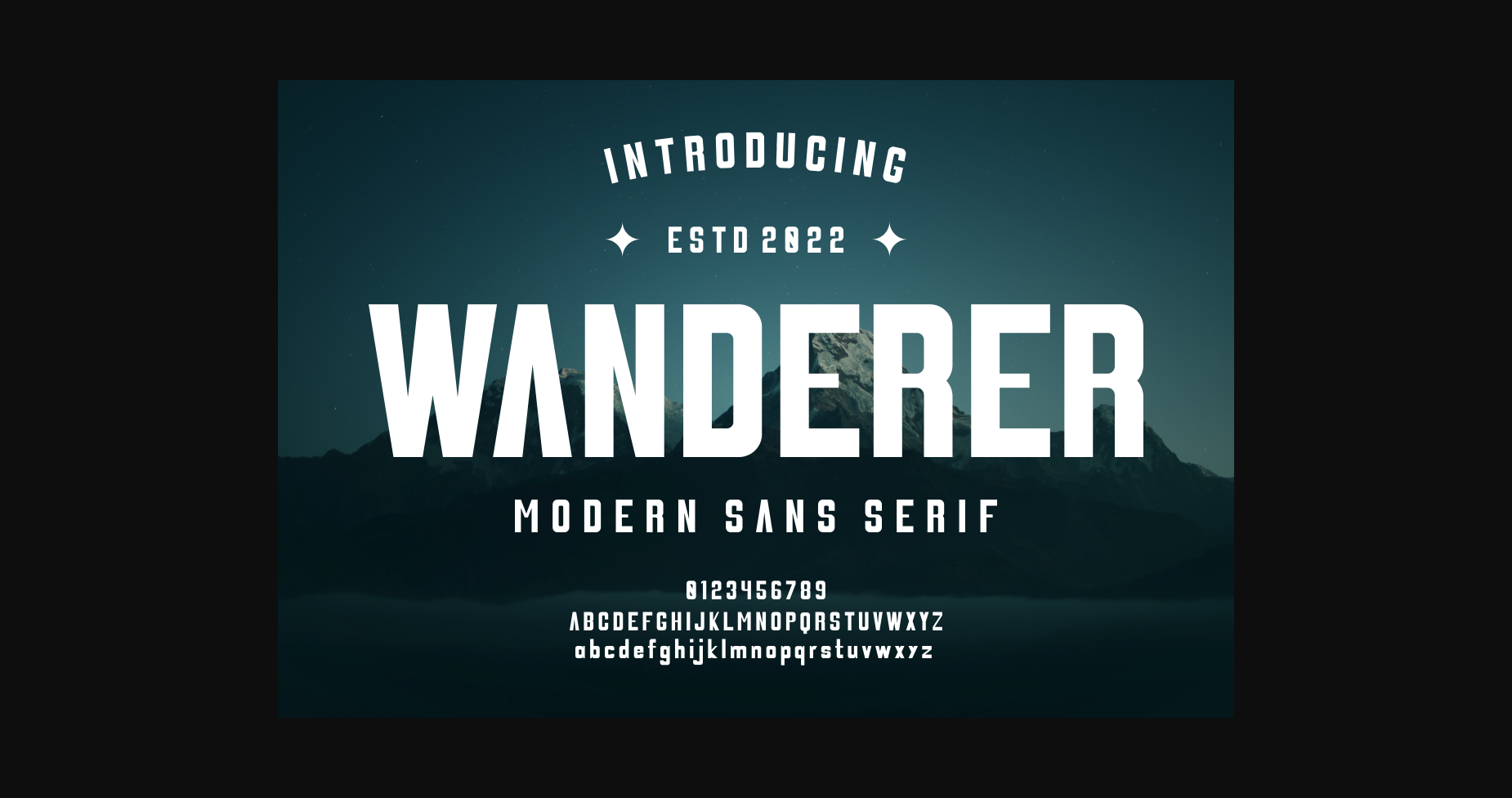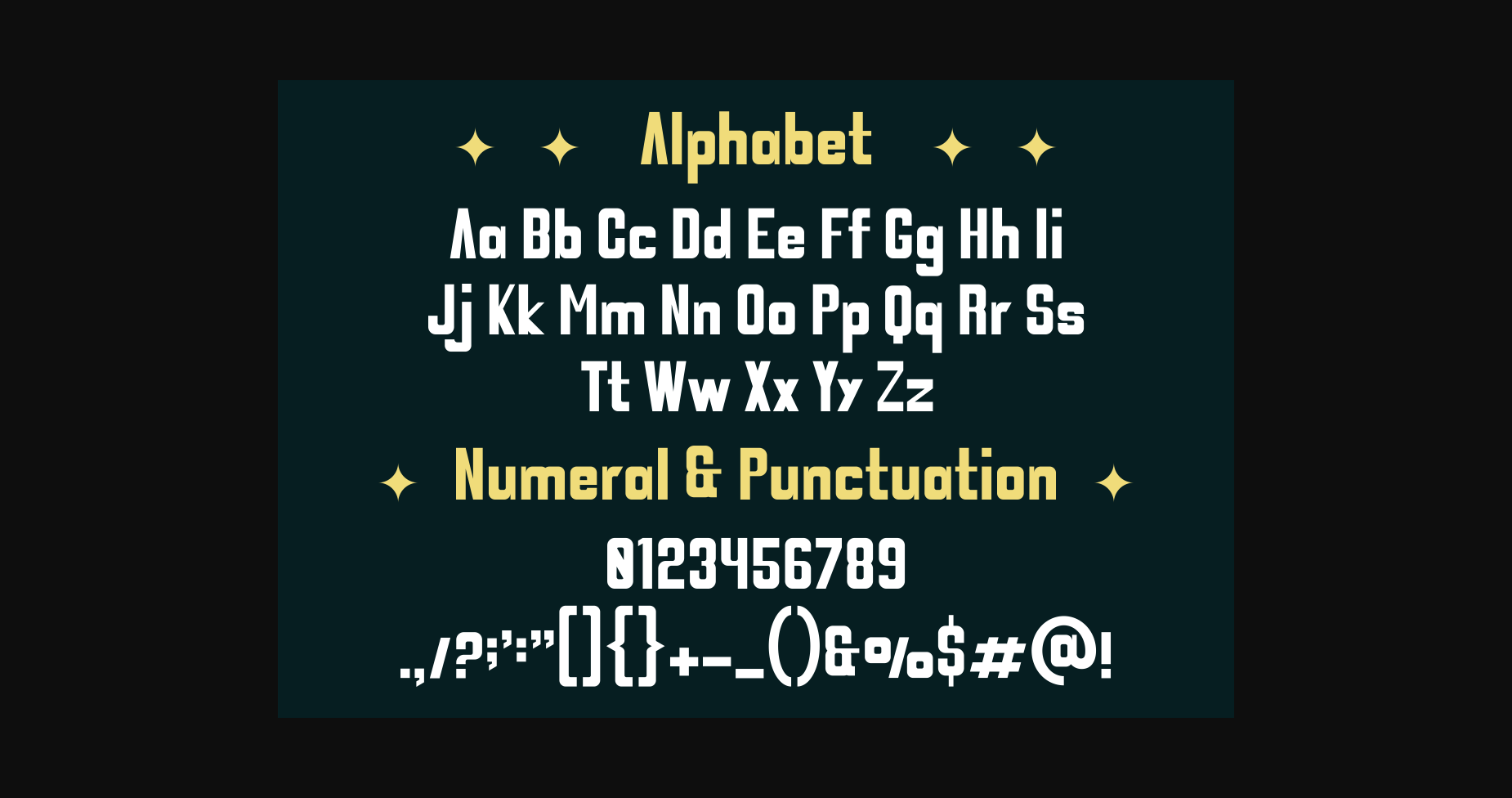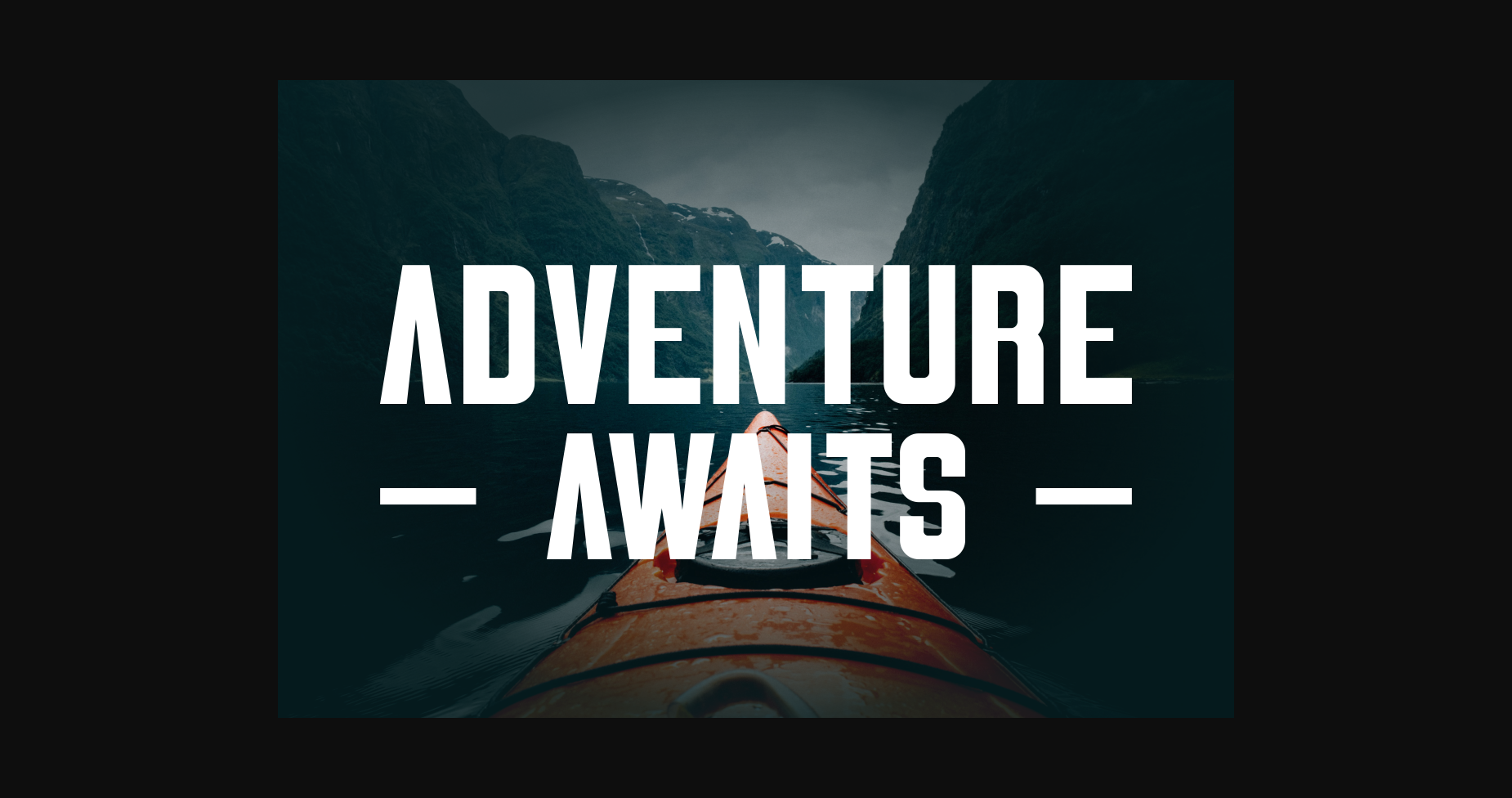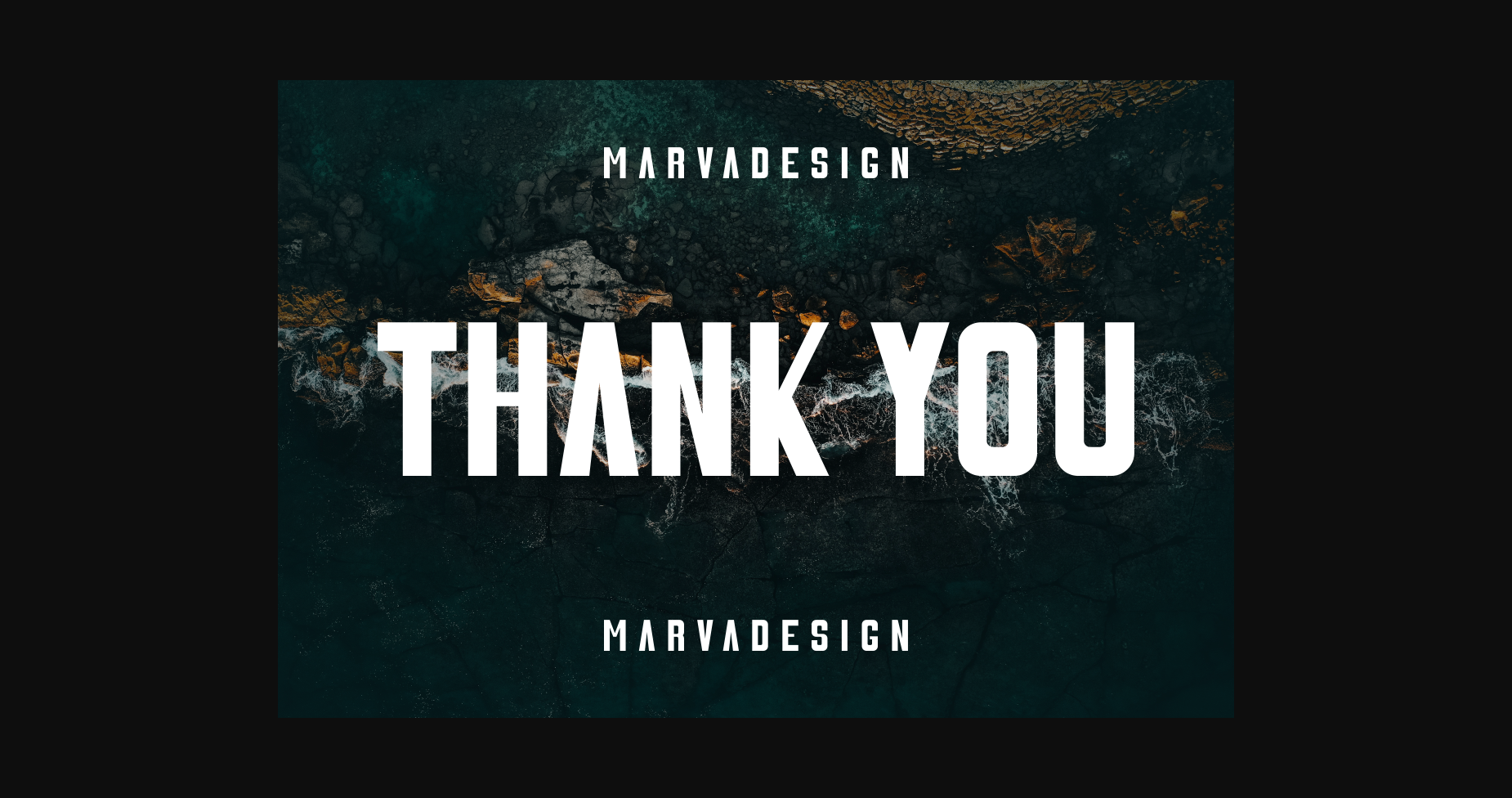
HomeSans Serif FontsWanderer Font Sans Serif Fonts Wanderer Font FacebookXPinterestWhatsApp 1 of 6 ... Wanderer Font Poster 2... Wanderer Font Poster 3... Wanderer Font Poster 4... Wanderer Font Poster 5... Wanderer Font Poster 6... About Wanderer Font Wanderer is a modern and bold sans serif font. This authentic font is suitable for any branding project like logo, t-shirt printing, product, and many more. Wanderer is such a versatile font in a wide range of contexts! DOWNLOAD NOW People also explored Little Child Font Sunfresh Font Funky Brush Font Anabelle Fernanda Font Tomihesta Font Two Coffee Mug Mockup with Basket of Flowers Valendina Font Rabofs Font Rain Font 378 0 TagsWanderer Font Previous articleNecromad FontNext articleGogesty Font LEAVE A REPLY Cancel reply Comment: Please enter your comment! Name:* Please enter your name here Email:* You have entered an incorrect email address! Please enter your email address here Website: Save my name, email, and website in this browser for the next time I comment. Personal Use Free Bestlife Personal Use Free Read more about this font Welliana Personal Use Free Read more about this font Samureix Personal Use Free Read more about this font Rollayka Personal Use Free Read more about this font BLOG How to Cut Any Font on Cricut: Convert a Font to SVG (Free) Turn any font into a clean SVG so it cuts crisp on Cricut - a quick 3-step workflow using a free font-to-SVG tool. Free vs Paid Fonts: Why Investing in Premium Fonts Is Worth It Free Fonts Risk: Why Free Fonts Can Be Dangerous for Designers The 10 Best Handwriting Fonts to Add Personality to Your Designs